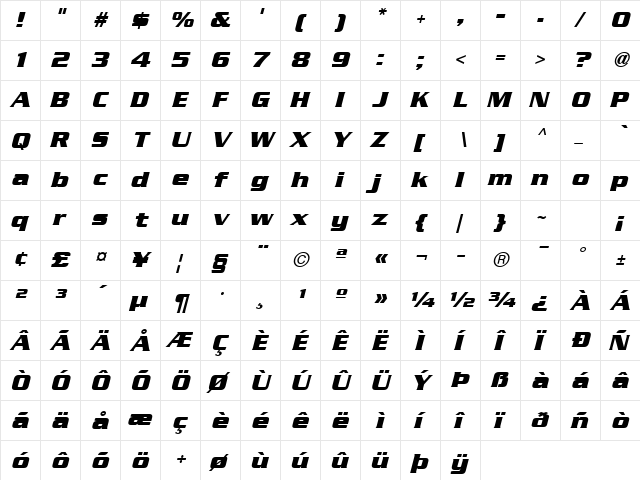
Serpentine ICG BoldOblique Font Preview
Serpentine ICG BoldOblique
Design Context for Serpentine ICG Typeface
Serpentine ICG takes a measured approach to typography — its balanced proportions and neutral character make it a reliable workhorse for both digital and print work. The slanted form adds forward momentum and visual energy. Its bold stroke weight gives it real presence on the page.